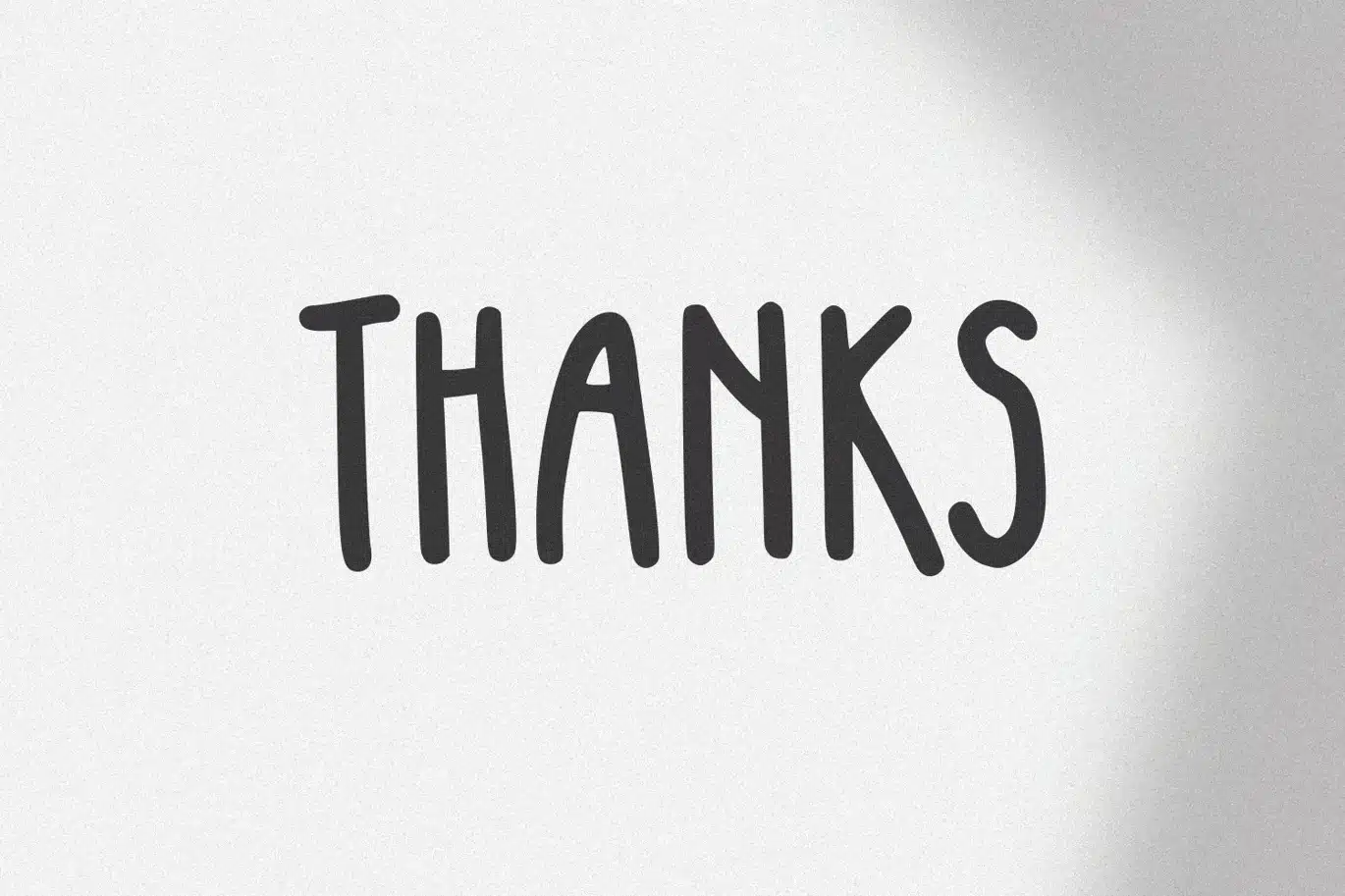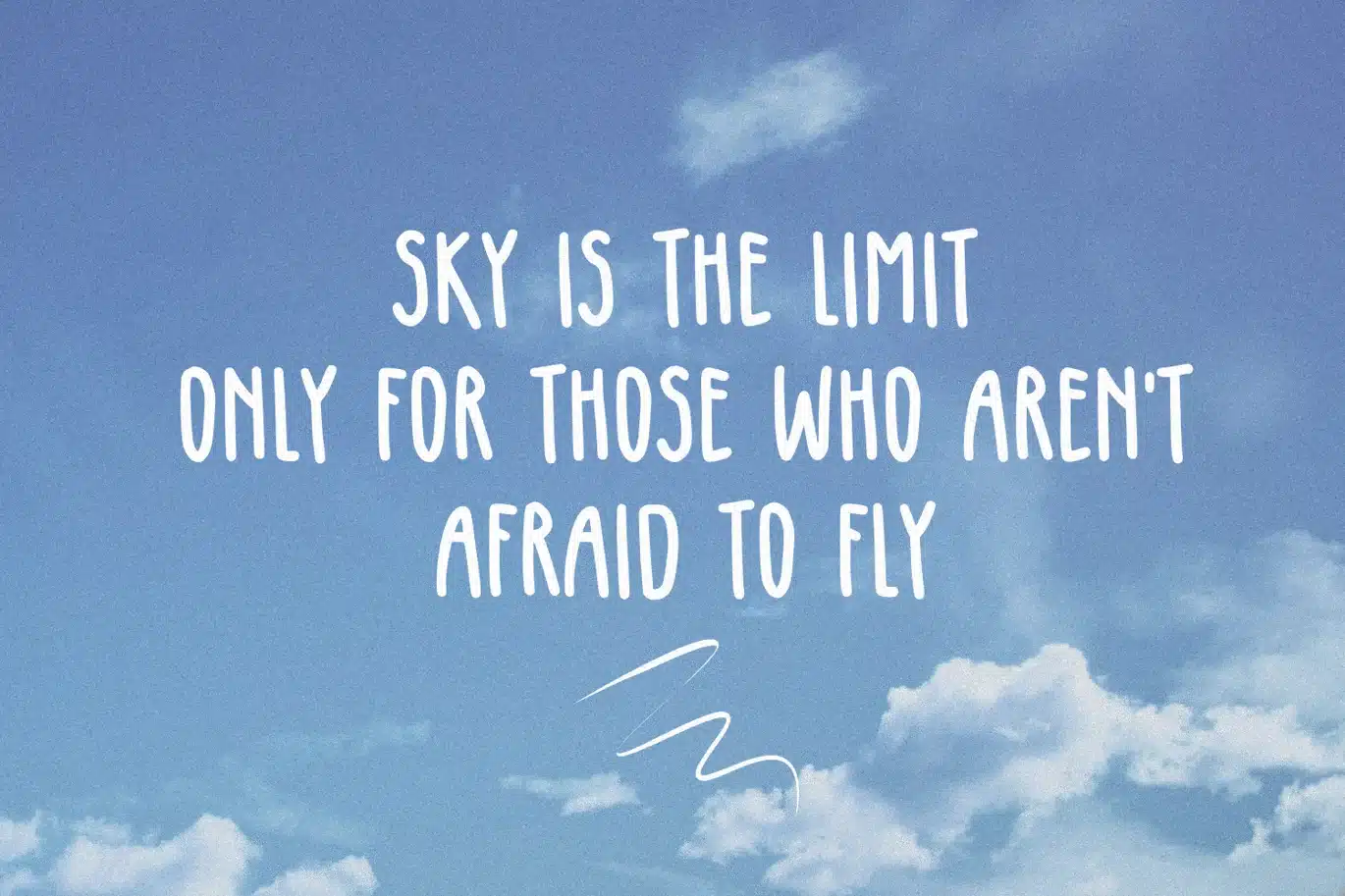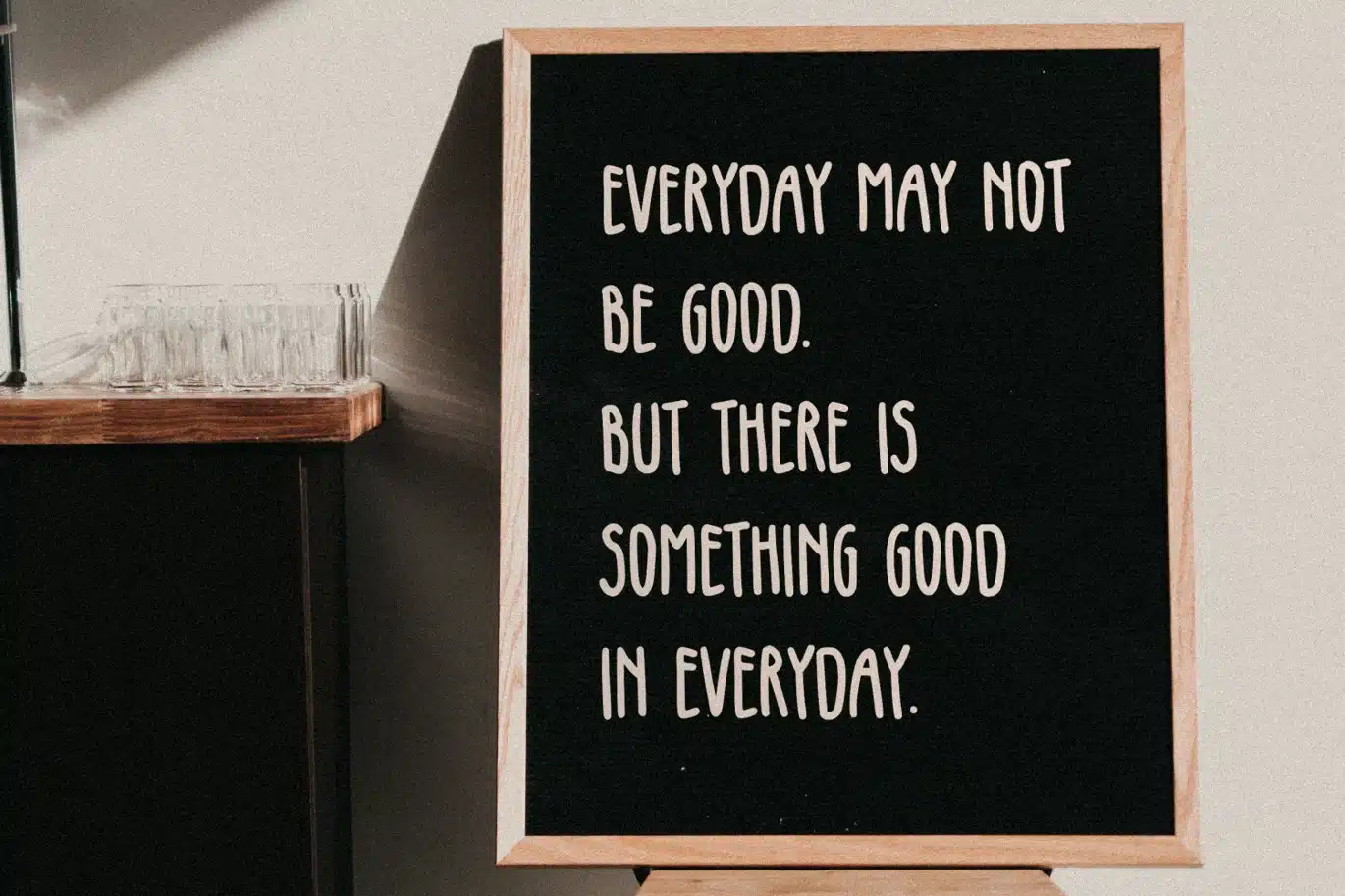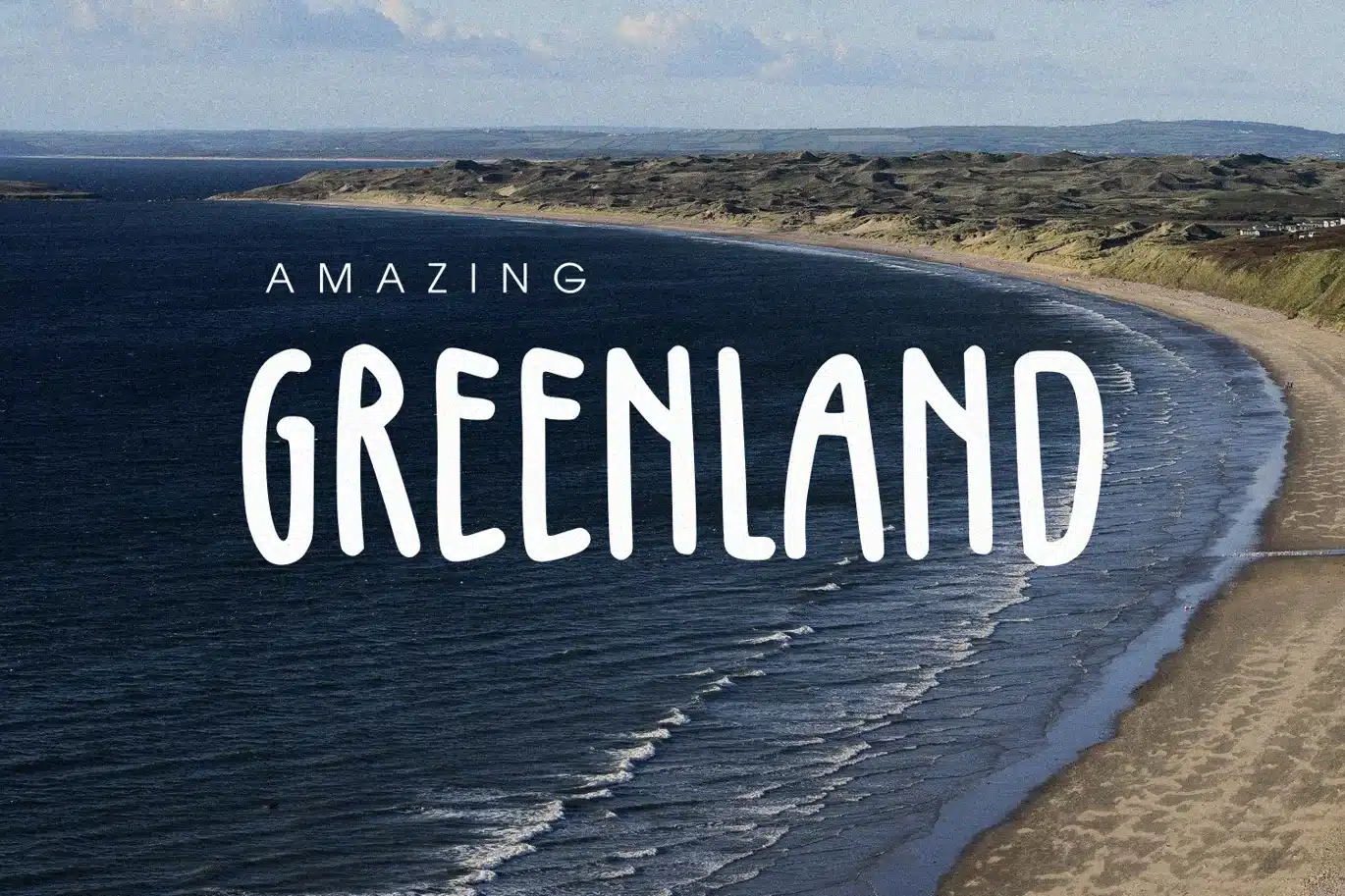
Penaflor – Condensed Handwriting Font
Penaflor - Condensed Handwriting Font
Penaflor - Condensed Handwriting Font, it’s perfect for logos, name card, magazine layouts, invitations, headers, or even large-scale artwork.